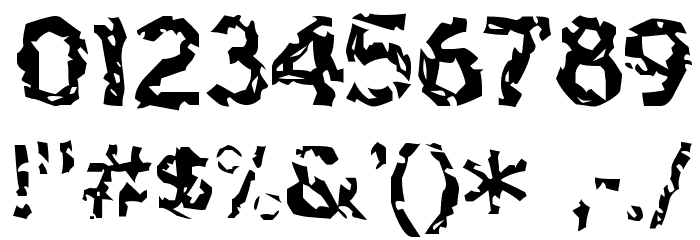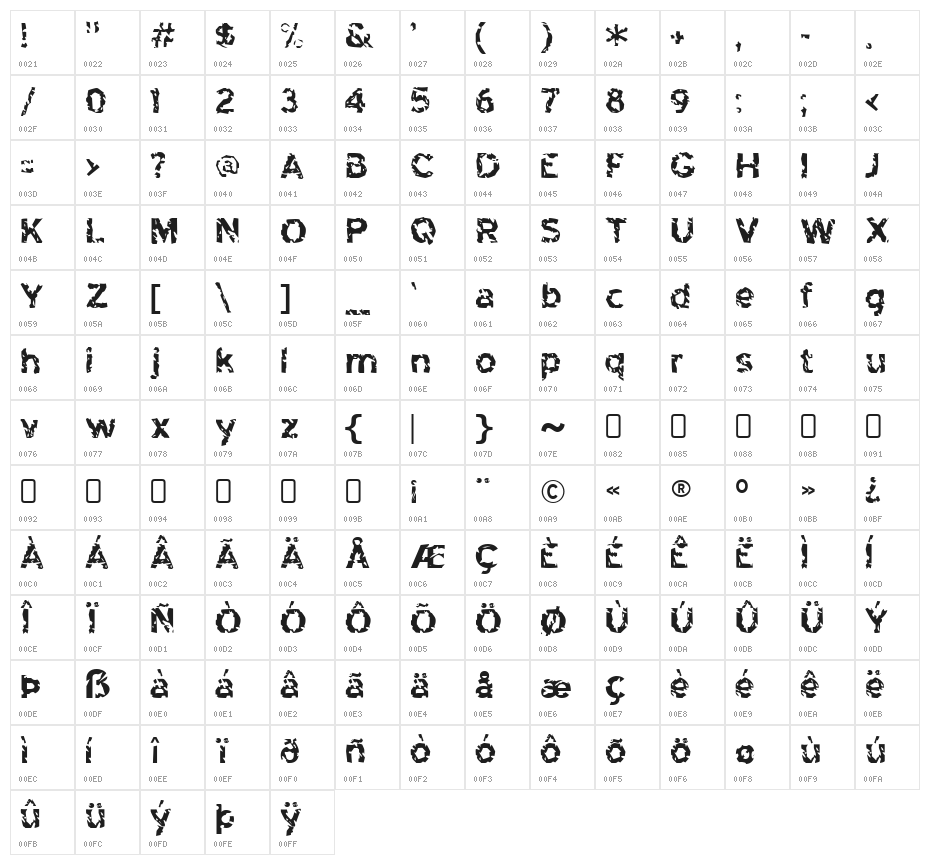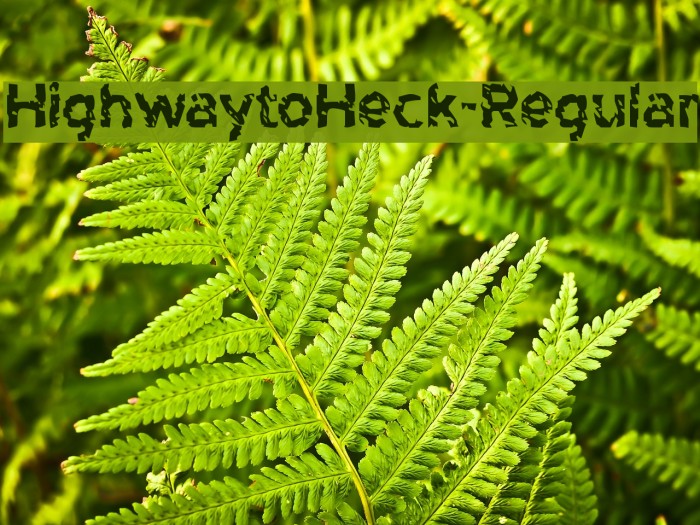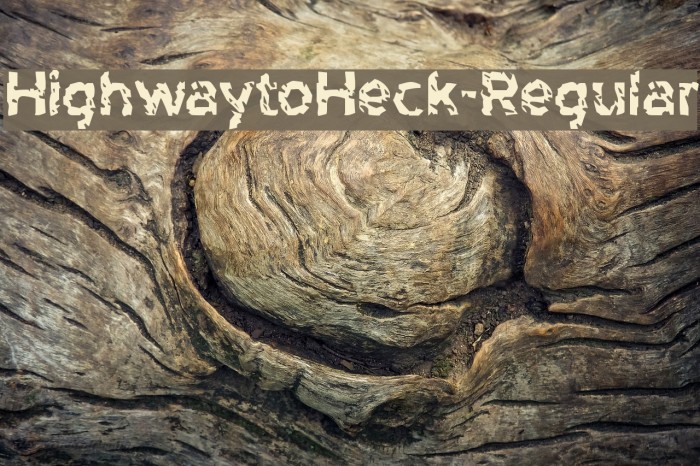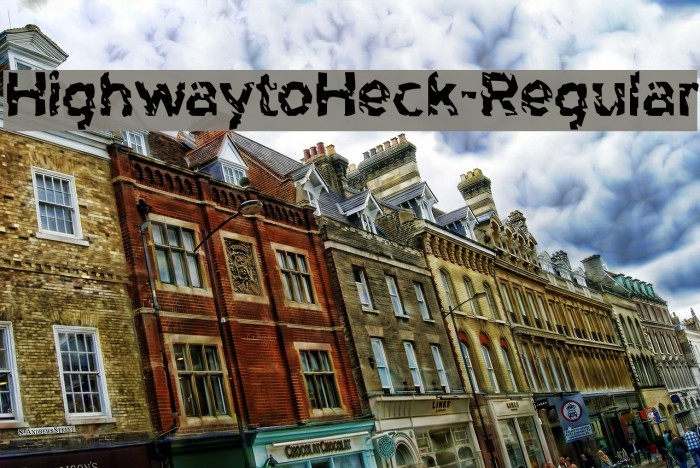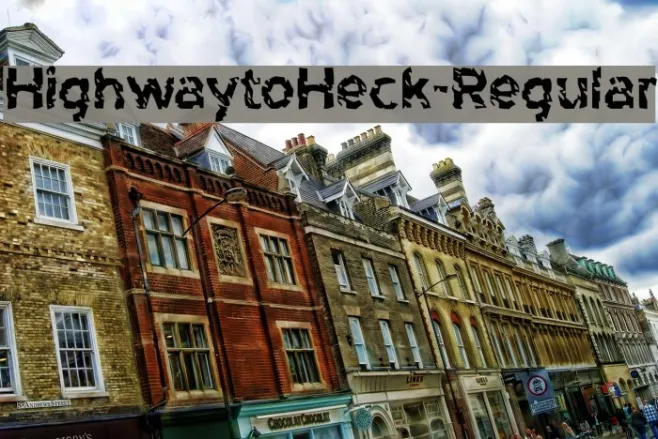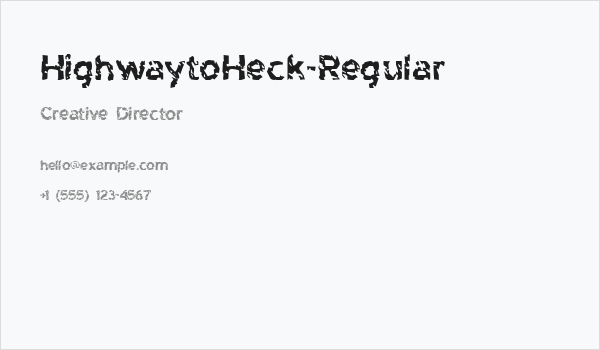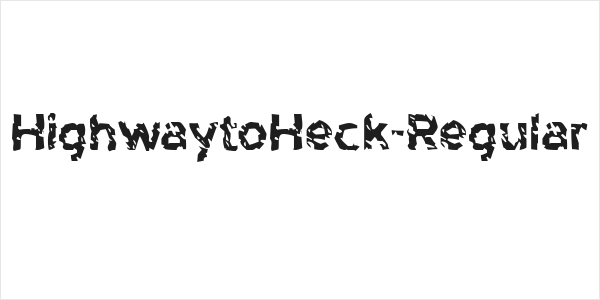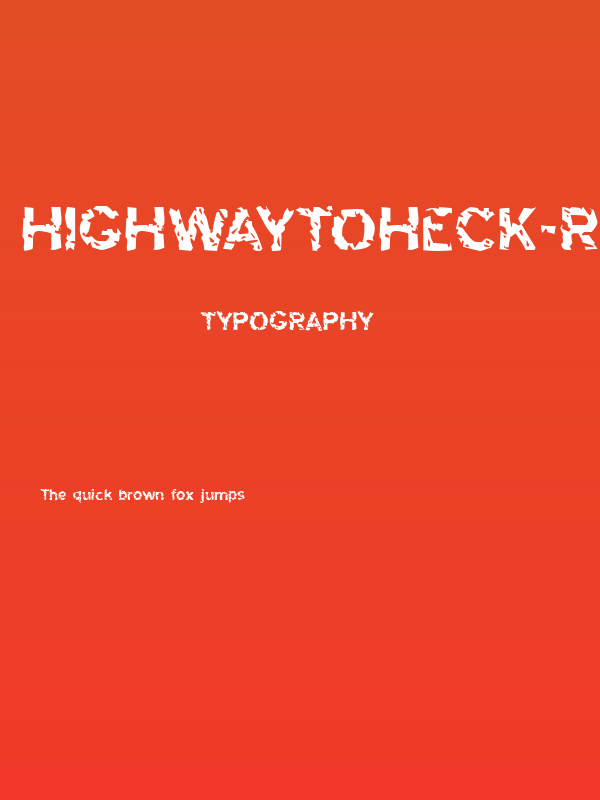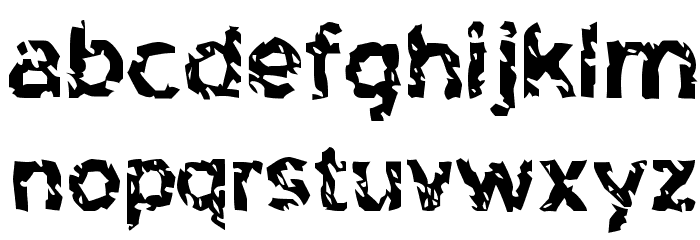
HighwaytoHeck-Regular Font
HighwaytoHeck-Regular Description
This font features a rugged, distressed appearance with irregular edges and a bold presence. The characters are heavily stylized, giving them a chaotic and edgy look, reminiscent of torn paper or shattered glass. The uppercase and lowercase letters maintain a consistent style, with jagged edges and uneven surfaces, creating a sense of movement and energy. The numbers and special characters follow the same design principles, ensuring a cohesive look across all elements. This font is ideal for projects that require a bold, eye-catching design with a rebellious or gritty aesthetic.
| Proposed Projects | Perfect for album covers, posters, or any design needing a rebellious, edgy vibe. |